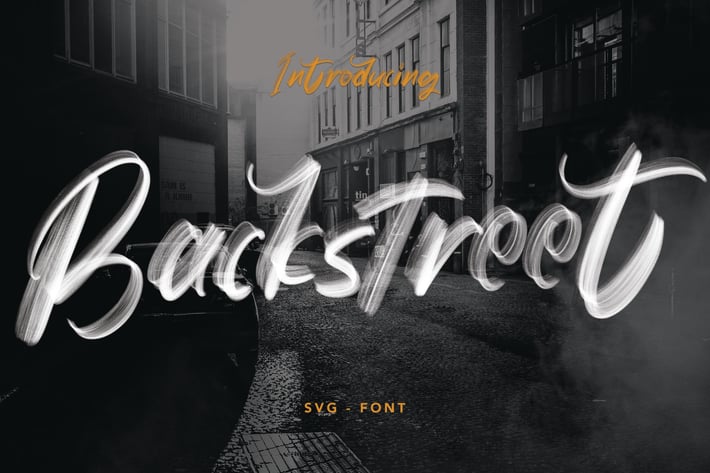
Backstreet - SVG Font
Backstreet - SVG Font contains a lowercase, uppercase, symbol, and also supports multi-language. There’s a lot of ligature in this font. Backstreet - SVG Font also comes with ligatures, stylistic alternates and many more.
this font suitable for fashion, branding, catalog and other design that you want.